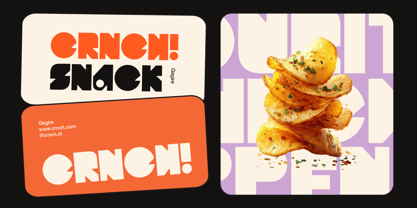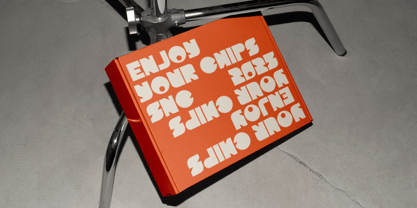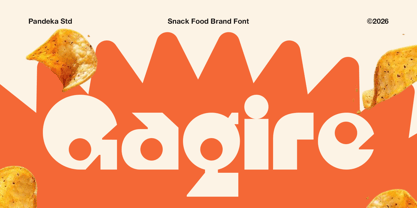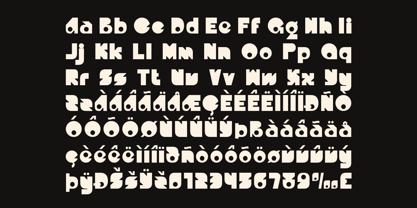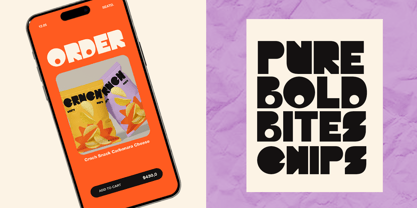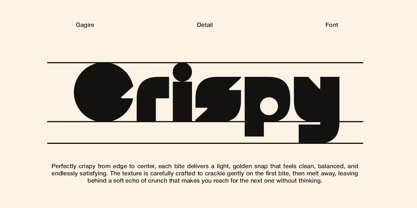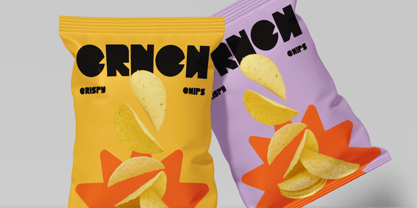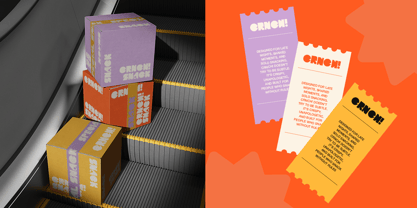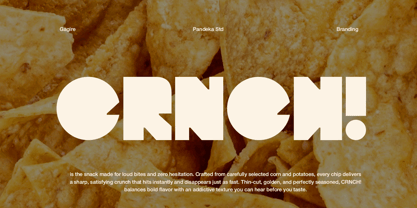
Gagire
por Pandeka Studio
La familia tipográfica Gagire fue diseñada por Sagara Nararya y publicada por Pandeka Studio. Gagire contiene 1 estilos. Más información sobre esta familia
Gagire is a bold and playful display font designed for snack food branding and eye-catching packaging. With its chunky shapes, rounded forms, and energetic personality, this font instantly grabs attention and delivers a fun, tasty vibe that works perfectly for chips, candy, street food, and fast-moving consumer products.
This font comes in 1 style: Regular, featuring uppercase and lowercase letters, numerals, punctuation, and symbol support. Gagire is ideal for logos, packaging, labels, posters, menus, social media ads, and promotional graphics where bold flavor and cheerful branding are key. It brings a crunchy, fun, and youthful character to any food-related design.
Diseñadores: Sagara Nararya
Fundición: Pandeka Studio